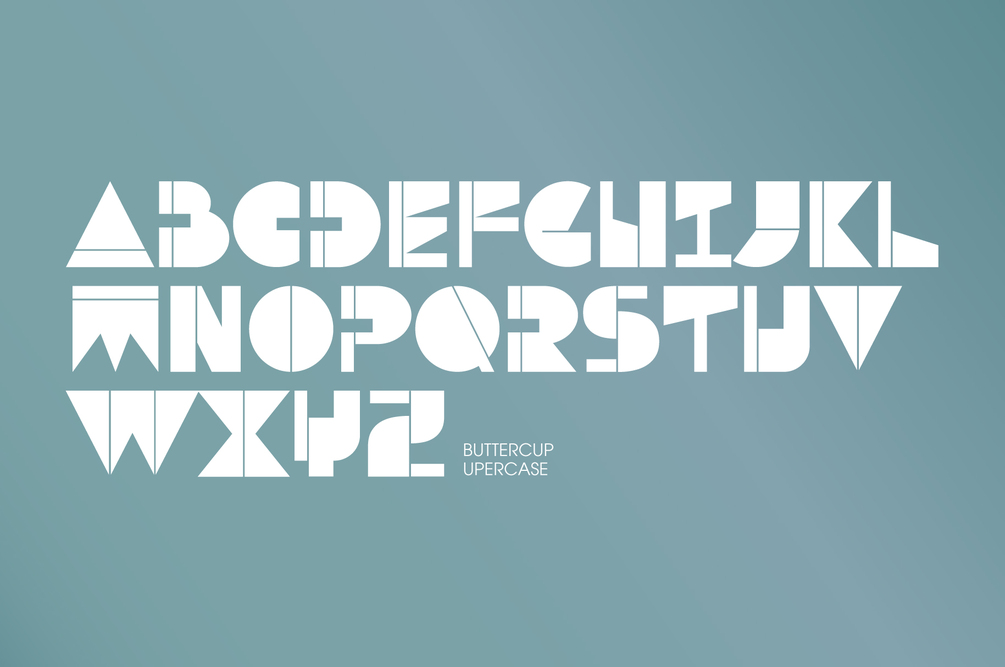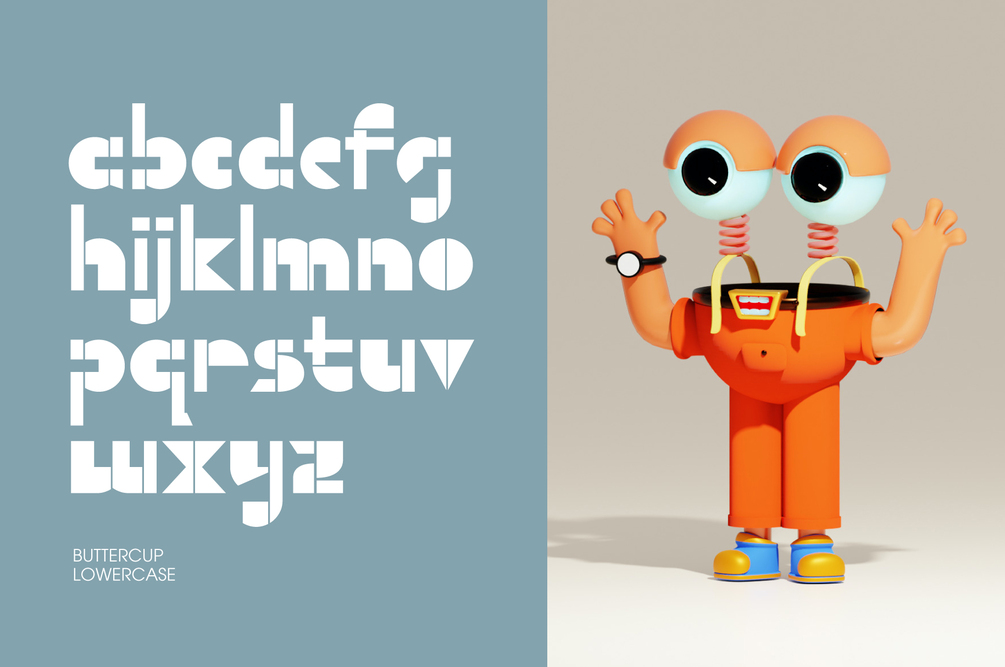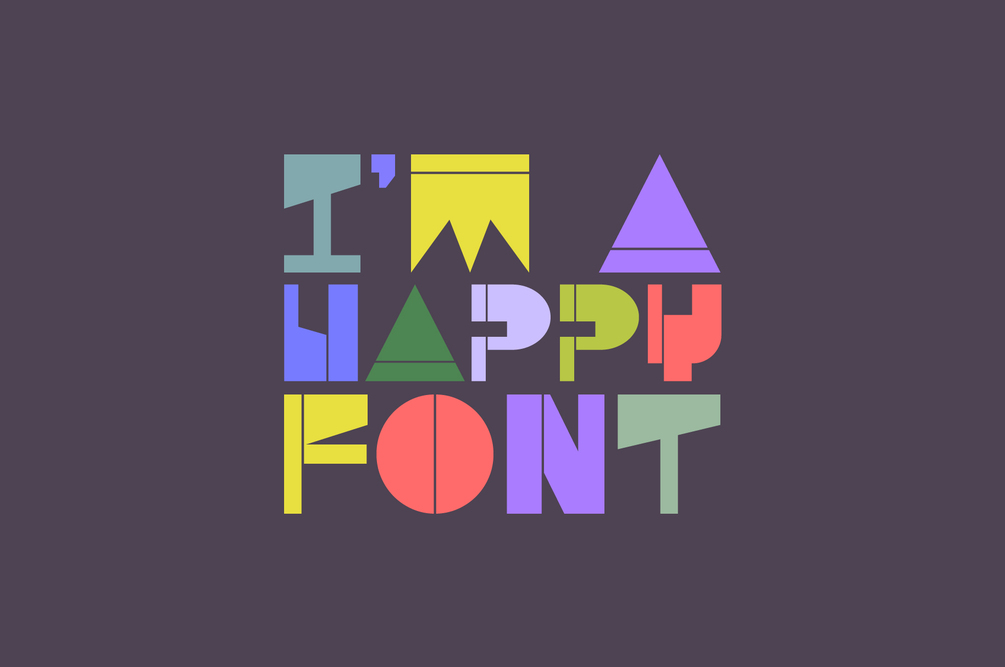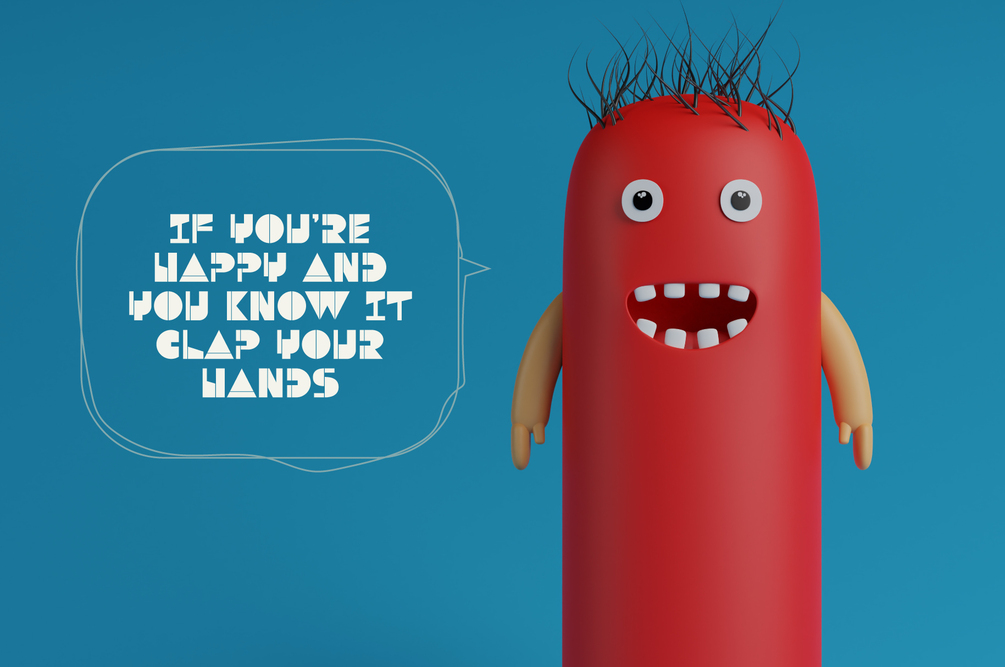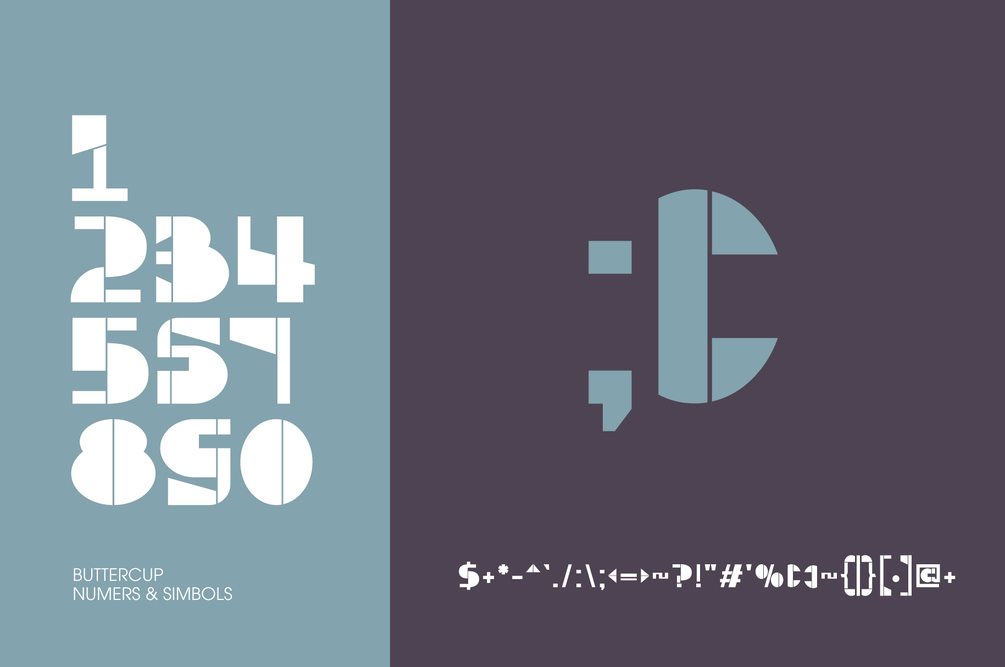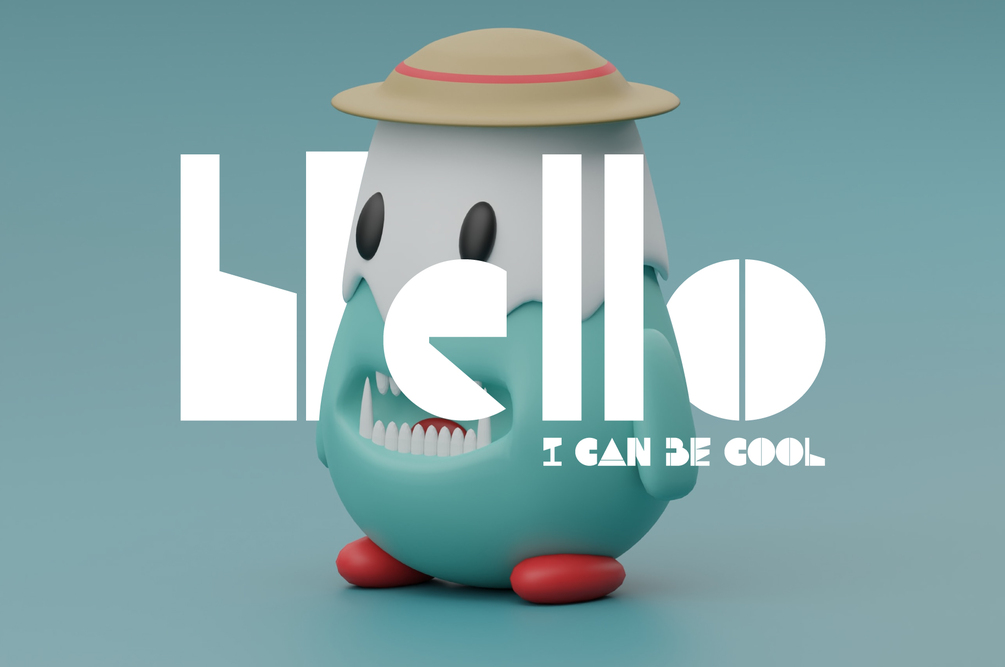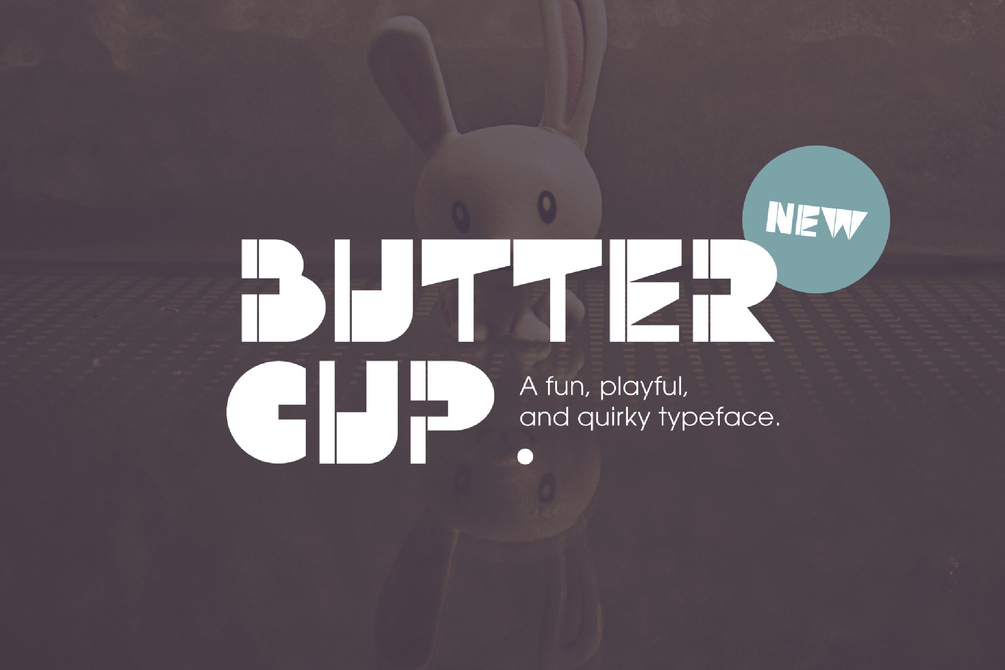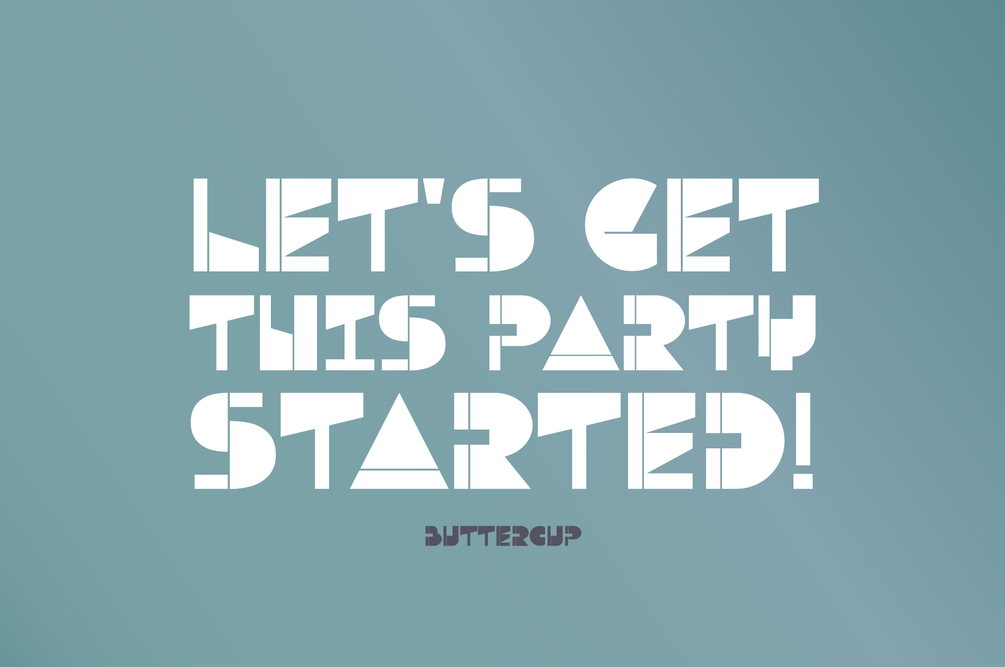
Buttercup - Playful Display
Buttercup is a fun, playful, and quirky typeface. It's perfect for kid related projects. You can use it for packaging, toys, logos, stickers, posters, stationary, and much more. If you're in need of a fun yet memorable font, then look no further than Buttercup.